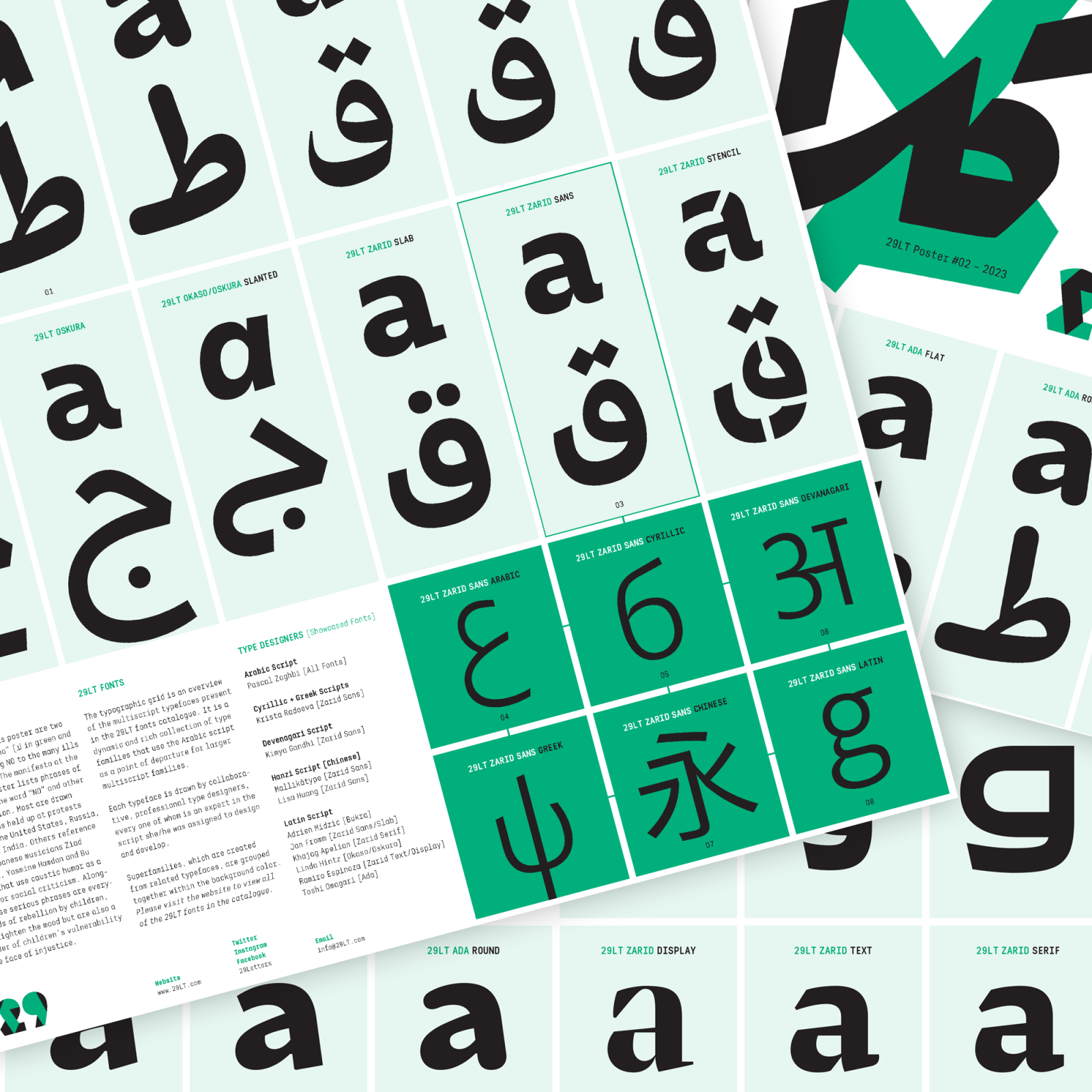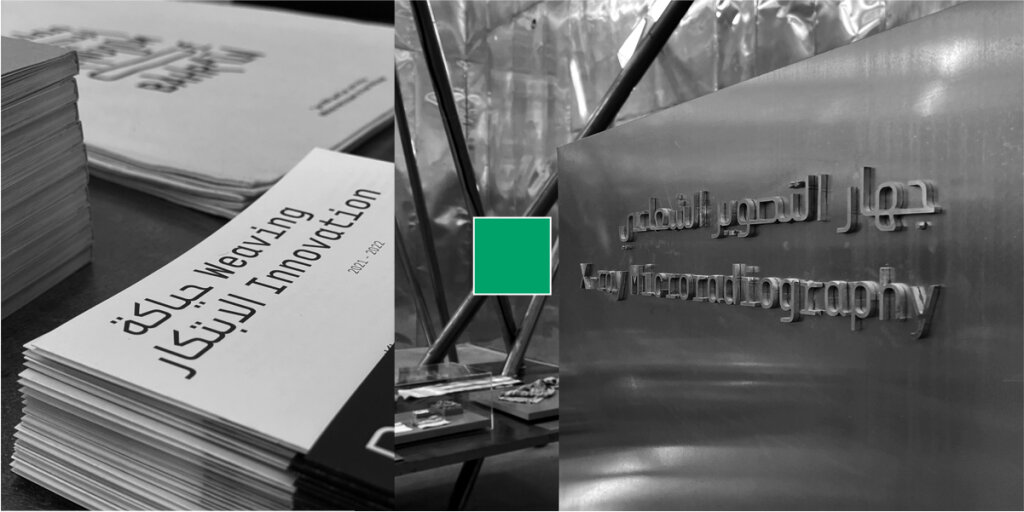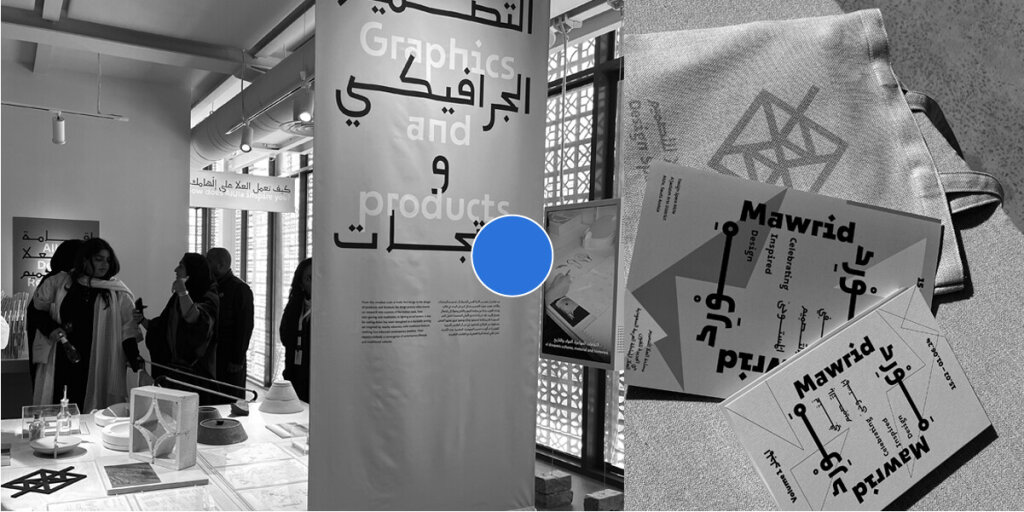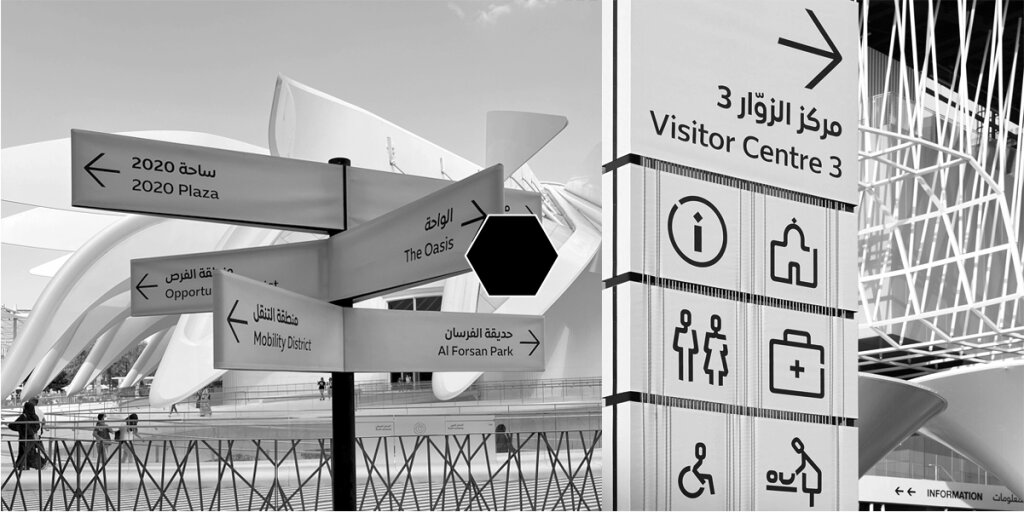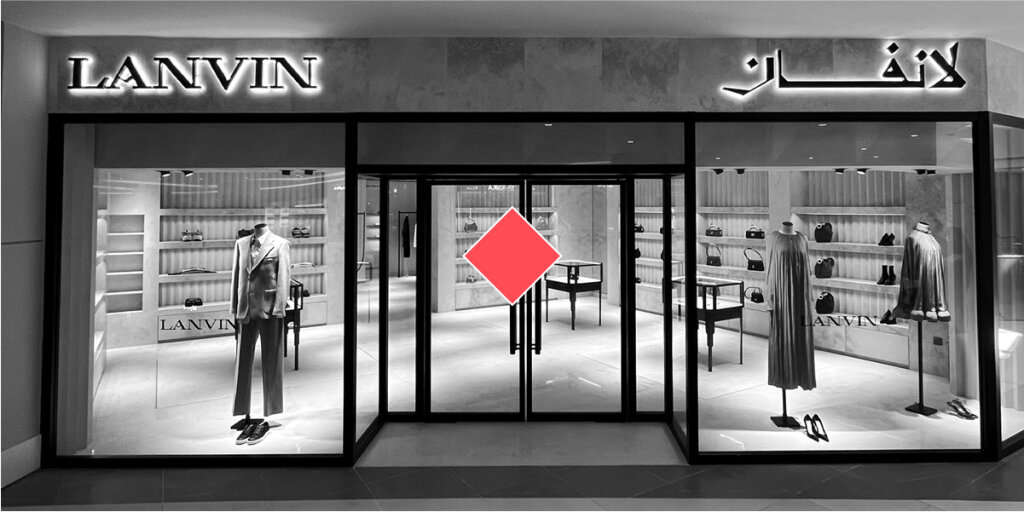
29LT
29Letters Type Foundry S.L. [ aka 29LT ] is dedicated to creating and publishing multiscript fonts. Its leading edge in Arabic and Latin typography arises from its collaborative team of professional Arab and European type designers crafting high-quality typefaces. Besides publishing unique retail fonts, 29LT frequently joins forces with renowned international branding and design agencies to deliver high-end typographic solutions, such as custom fonts and logotypes.
With a typographic work incorporating multiple scripts, 29LT is committed to exploring the diversity and potential of Arabic typography and tapping into other world scripts.
The foundry is founded and run by Pascal Zoghbi.
29LT Idris Bi-scriptual Typeface. Styles: Sharp, Flat, Pure, and Round. Type Designers: [Arabic] Pascal Zoghbi + [Latin] Linda Hintz and Krista Radoeva
Design Space AlUla / Saudi Arabia
Located in the AlJadidah Arts District, it is a hub for design professionals, students, and enthusiasts, aiming to promote and preserve AlUla’s cultural legacy.
Pascal Zoghbi designed the logo as part of a comprehensive visual identity created by Clara Sancho Studio. Additionally, a customized version of 29LT Okaso was created for the wordmark in the logo and the visual identity as a whole.
Bahrain Pavilion Expo2020 Dubai / United Arab Emirates
The Pavilion of the Kingdom of Bahrain at Expo2020 Dubai explored density as a catalyst for opportunity through an intricate exploration of the dense natural and urban compositions of the island.
29LT Zawi, a sharp and corporate counterpart of 29LT Baseet, was primarily intended to serve as the typographic visual element in the design concept. The visual identity was a collaborative effort between Clara Sancho and Pascal Zoghbi.
Expo2020 Dubai / United Arab Emirates
The Expo bespoke bilingual Arabic and English typeface was a collaboration between Pascal Zoghbi and Dino dos Santos. A simplified Neo-Naskh Arabic pairs a contemporary sans-serif Latin echoing the theme of the Expo: “Connecting Minds, Creating the Future.”
A clear and open design approach infuses the fonts with a vibrant and open ambiance, which resonates exceptionally well with the countless cultural and business visitors.
Lanvin Saudi Arabia Store / Saudi Arabia
The challenge of creating cohesive bi-scriptual wordmarks for brands in the Arab world, with both Arabic and Western names, requires careful consideration. The redesign of the Lanvin logotype in both Latin and Arabic scripts illustrates this complexity.
Pascal Zoghbi explored Thuluth and Eastern Kufic calligraphic styles to harmonize with the new Latin typography, ensuring a professional and visually coherent result.
29LT Azahar Multi-scriptual Typeface. Styles: Display and Text. Type Designers: [Arabic] Naïma Ben Ayed + [Cyrillic] Krista Radoeva + [Latin] Jose Carratala
What are the challenges and opportunities in designing multiscript fonts? How do you see multi-script typography developing and being used now and in the next decade?
As part of the 29LT philosophy, native and professional type designers know best how to design and test a set of languages for a script that they comprehend. All of the multi-script 29LT fonts are designed by a team of native type designers.
Take 29LT Zarid Sans as an example. The Arabic script is designed by Pascal Zoghbi from Lebanon, the Latin script by Jan Fromm from Germany, the Cyrillic and Greek scripts by Krista Radoeva from Bulgaria, the Devanagari script by Kimya Gandhi from India, and the Hanzi (Chinese) design proposal by MalikaType from China.
It takes an experienced and dedicated team to work together and coordinate the design of a certain type style across all scripts and to match the styles accordingly. As native speakers and writers of at least one of the scripts/languages they are designing, they are all professional type designers with higher education degrees in type design and have wide experience in the type design practice.
29LT will maintain the focus of the bi-script Arabic and Latin areas of expertise, while expanding its team of collaborators and designers to cover additional world scripts. We hope that the wording ‘non-Latin’ soon stops being used to categorize all world scripts that are not Latin; it is best to name each script by its name and categorize it based on its own linguistic and geographical aspects.
Working with such a high level of experts is costly and makes it challenging to finance a multi-script project if it is a sell-initiate foundry project, not a bespoke one. Since the world’s cultures are growing closer and closer together, and the global village we live in needs high-level multi-script fonts for communication, we strongly believe that this effort will be rewarded in the future.
In 2018, he relocated to Madrid where he is currently based. Since then, his interest in a vast number of Spanish historical and cultural topics, especially those that showcase the merging of Arabic and Spanish cultures, grew keener. 29LT expanded accordingly, shifting from supporting only Arabic and Latin scripts to a global multiscript approach tapping into other world scripts.
29LT Zarid Sans Multi-scriptual Typeface. Type Designers: [Arabic] Pascal Zoghbi + [Cyrillic & Greek] Krista Radoeva + [Devanagari] Kimya Gandhi + [Hanzi] Mallikātype + [Latin] Jan From